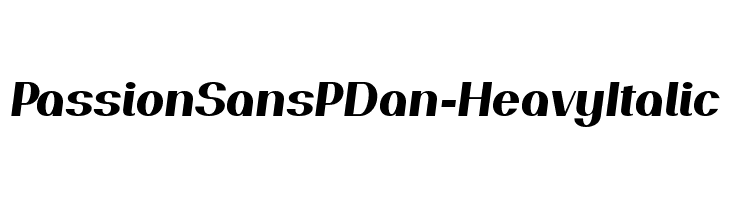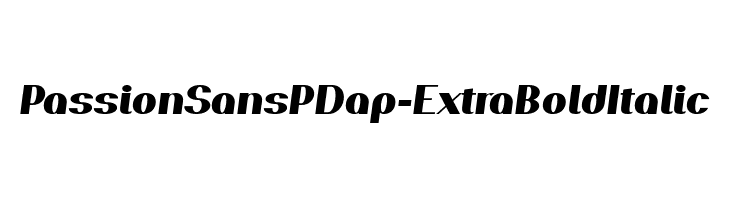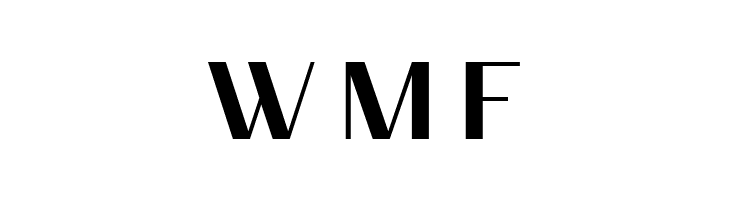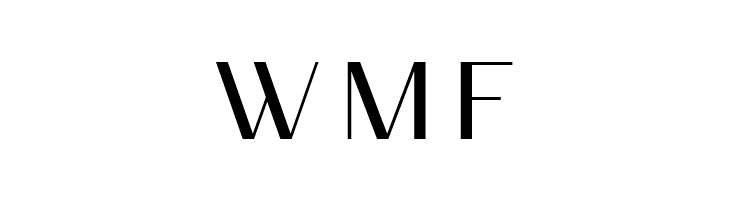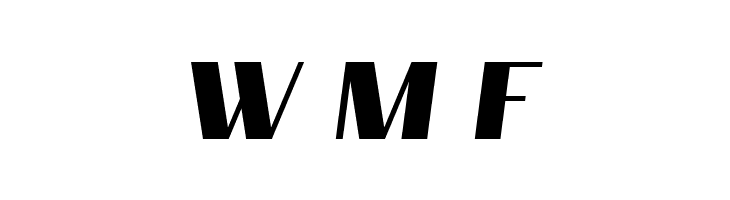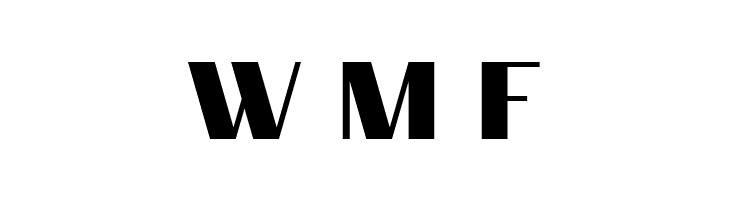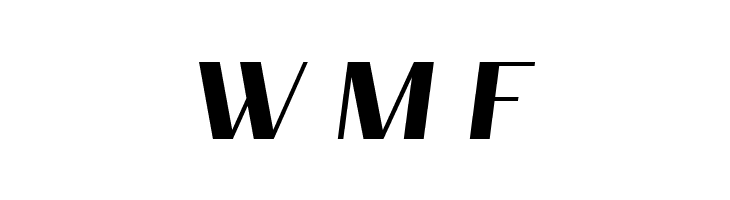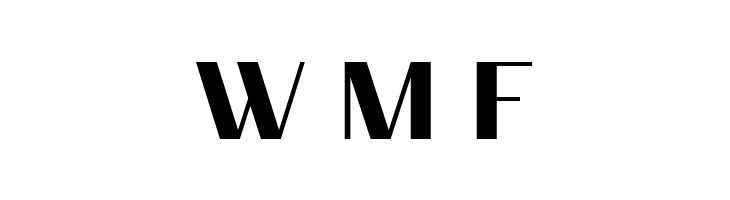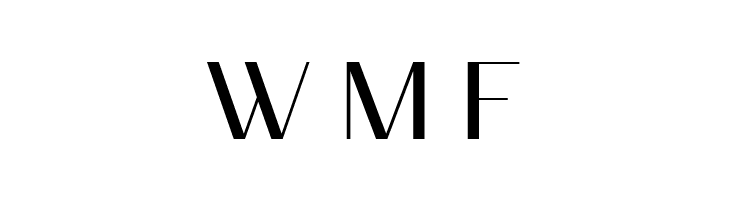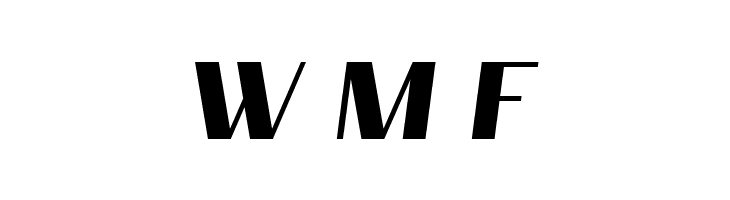
A bold, geometric font with clean lines and a modern aesthetic.
A modern, high-contrast sans-serif font with elegant and bold characteristics.
A bold, italic font with a dynamic and energetic style.
A modern, ultra-thin sans-serif font with a minimalist design.
A bold, modern font with thick strokes and a dynamic slant.
A bold, italic font with a dynamic and energetic style.
A sleek, ultra-thin font with clean lines and a modern aesthetic.
A bold, high-contrast font with a modern and impactful design.
A modern sans-serif font with geometric influences and slight stroke contrast.
A bold, italicized font with a dynamic and modern style.